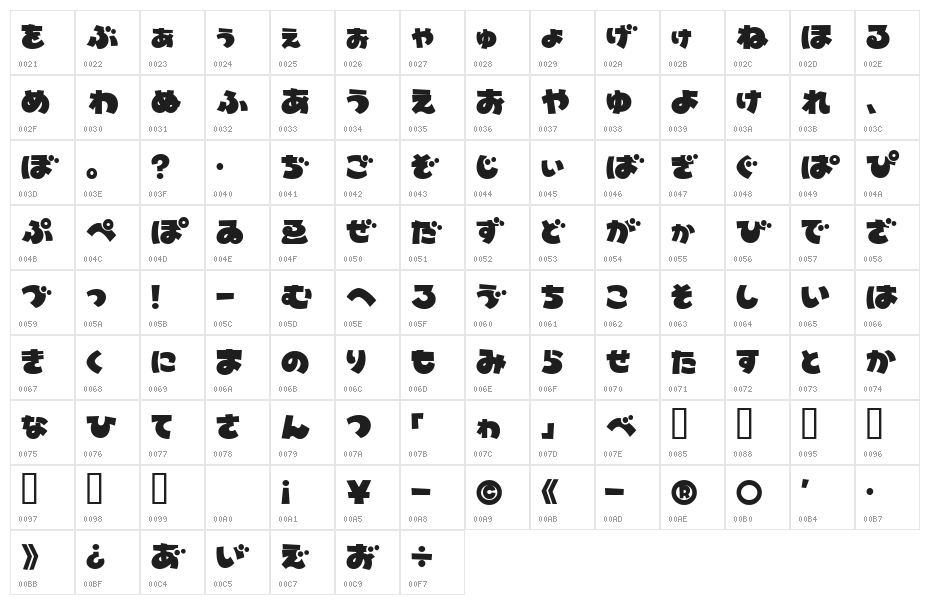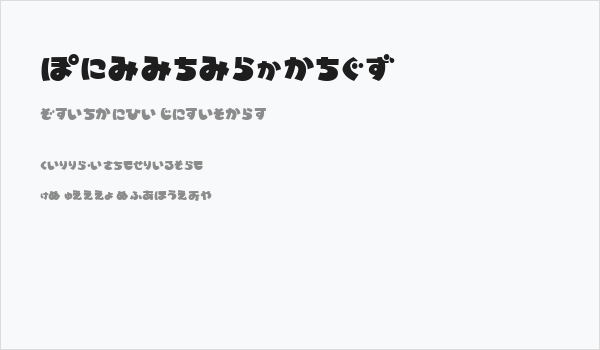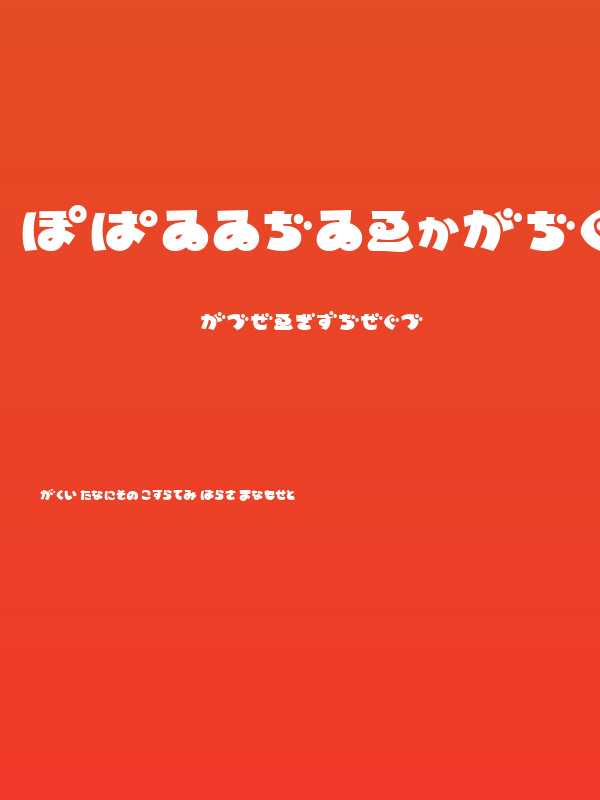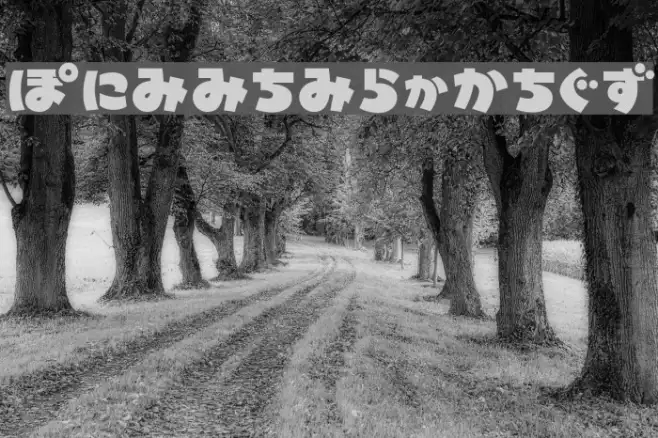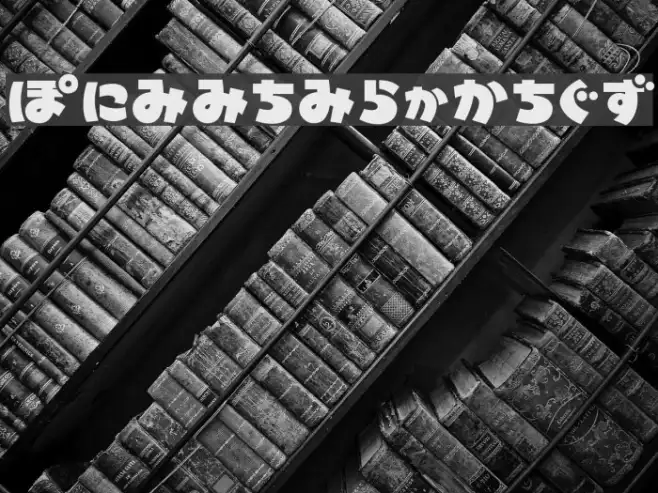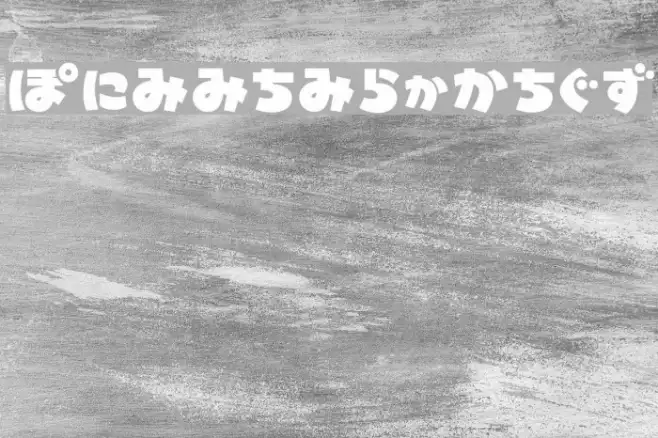
MinnanoUtaHR Font
MinnanoUtaHR Description
This font features bold, rounded characters with a playful and friendly appearance. The strokes are thick and consistent, giving it a strong presence on the page. The characters are well-spaced, ensuring readability while maintaining a cohesive look. The overall style is modern and approachable, making it suitable for various creative applications. The font's design incorporates a sense of fun and energy, making it ideal for projects that aim to convey warmth and approachability.
| Proposed Projects | Ideal for children's books, playful branding, posters, and educational materials. |